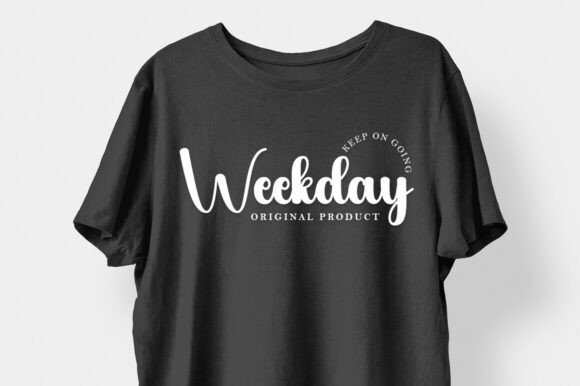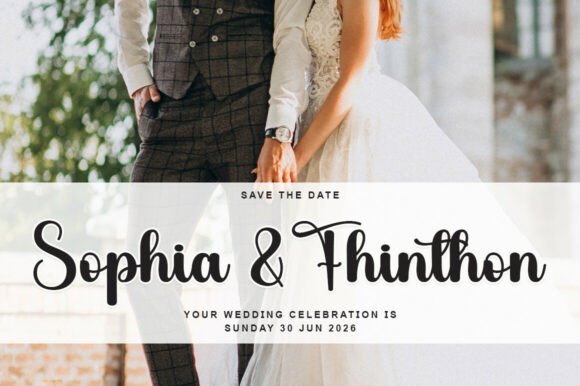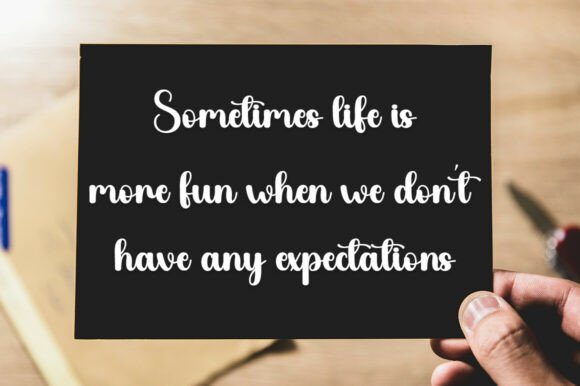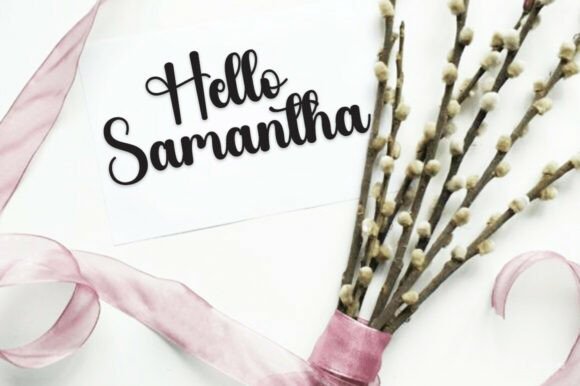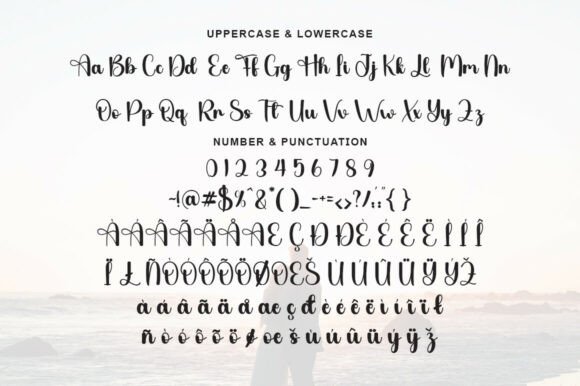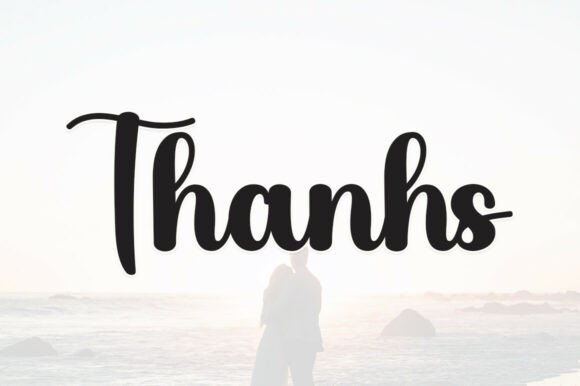
Introducing Chika Font: The Epitome of Modern Luxury and Elegance
In the realm of typography, few fonts manage to strike a balance between simplicity, luxury, and femininity as effortlessly as Chika Font. This beautifully flowing, modern script typeface is a game-changer for designers and crafters seeking to infuse their projects with a touch of sophistication and elegance. With its thick, smooth strokes and dramatic bottom swashes, Chika Font is the perfect choice for those looking to add a dash of romance and flair to their designs.
A Perfect Blend of Luxury and Readability
Chika Font boasts a unique combination of clean, readable forms and luxurious, flowing strokes. Its thick, smooth lines give it a sturdy presence, making it ideal for display purposes, while its elegant swashes add a touch of whimsy and sophistication. This font is perfect for personal branding, upscale packaging, and personalized wedding stationery, where a handcrafted, luxurious feel is desired.
One of the standout features of Chika Font is its versatility. Its strong presence works wonderfully as a display script, making it a versatile and attractive choice for designers seeking sophisticated charm. Whether you’re looking to create eye-catching social media quotes, elegant wedding invitations, or luxurious packaging, Chika Font is the perfect choice.
PUA-Encoded for Effortless Customization
Chika Font is PUA-encoded, ensuring effortless access to all glyphs, swashes, and alternate characters. This means that designers can customize their creations with ease, using the font’s extensive range of features to bring their vision to life. With Chika Font, you can add intricate details, experiment with different styles, and push the boundaries of your creativity.
Key Features of Chika Font
- Modern script typeface: Chika Font boasts a fresh, contemporary look that’s perfect for designers seeking a modern aesthetic.
- Thick, smooth strokes: The font’s sturdy lines give it a strong presence, making it ideal for display purposes.
- Dramatic bottom swashes: Chika Font’s elegant swashes add a touch of romance and flair to its clean, readable forms.
- PUA-encoded: Effortlessly access all glyphs, swashes, and alternate characters to customize your creations with ease.
- Highly feminine and elegant: Chika Font is perfect for designers seeking to add a touch of sophistication and luxury to their projects.
Why Choose Chika Font?
With so many fonts available, why choose Chika Font? The answer lies in its unique combination of luxury, elegance, and versatility. Whether you’re a designer seeking to elevate your brand or a crafter looking to add a touch of sophistication to your projects, Chika Font is the perfect choice. Its modern aesthetic, highly feminine style, and effortless customization options make it an attractive choice for anyone seeking to create stunning designs.
Tips for Using Chika Font
To get the most out of Chika Font, here are a few tips to keep in mind:
- Experiment with different sizes: Chika Font works beautifully in a range of sizes, from large display fonts to smaller body text.
- Play with swashes: The font’s dramatic bottom swashes are a key feature – experiment with different swash styles to add flair to your designs.
- Pair with complementary fonts: Chika Font pairs beautifully with clean, sans-serif fonts – try pairing it with a font like Open Sans or Lato for a striking contrast.
| Font Name | Chika Font |
| Author | Diorde Studio |
In conclusion, Chika Font is a beautifully flowing, modern script typeface that combines simple luxury with a highly feminine and elegant style. With its thick, smooth strokes, dramatic bottom swashes, and PUA-encoded features, it’s the perfect choice for designers and crafters seeking to add a touch of sophistication and luxury to their projects. Whether you’re looking to create stunning personal branding, upscale packaging, or elegant wedding stationery, Chika Font is the perfect choice.